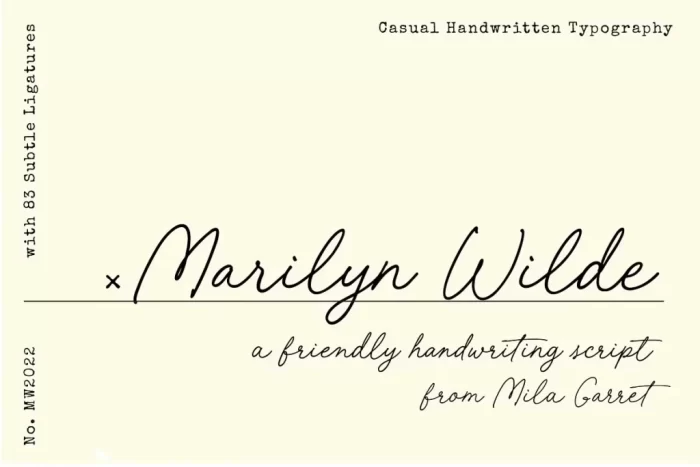
Marilyn Wilde Font
Marilyn Wilde is a brand new handwriting font, full of sweetness and friendly curves. With more subtle ligatures, Marilyn Wilde is inspired by neat cursive handwriting, and can add a human touch to your designs, from modern logos to instagram quotes, wedding stationery, printed collateral, websites, and more. A rough version is included for a more organic, analog handwritten feel.
• Full Set of standard alphabet and punctuation
• Extra stylistic alternates for select characters
• Rough version
• 83 Ligatures
• Multilingual Characters